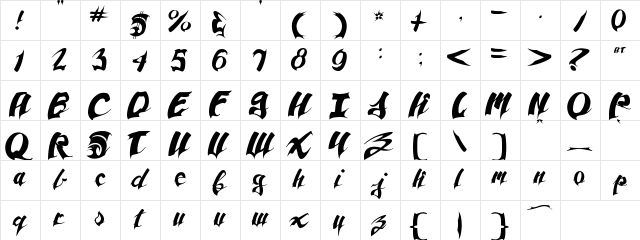
Anpad Script Regular
Design Context for Anpad Script Typeface
Anpad Script flows with the natural rhythm of handwritten lettering, making it ideal for designs that call for warmth and personal expression.
Font Pairing: Combine Anpad Script with a simple geometric sans for maximum contrast — the tension between flowing curves and clean structure is a classic typographic pairing.
Pro Tip: Pair Anpad Script with a clean sans-serif for supporting text. The contrast between fluid script and geometric structure creates an elegant typographic hierarchy.